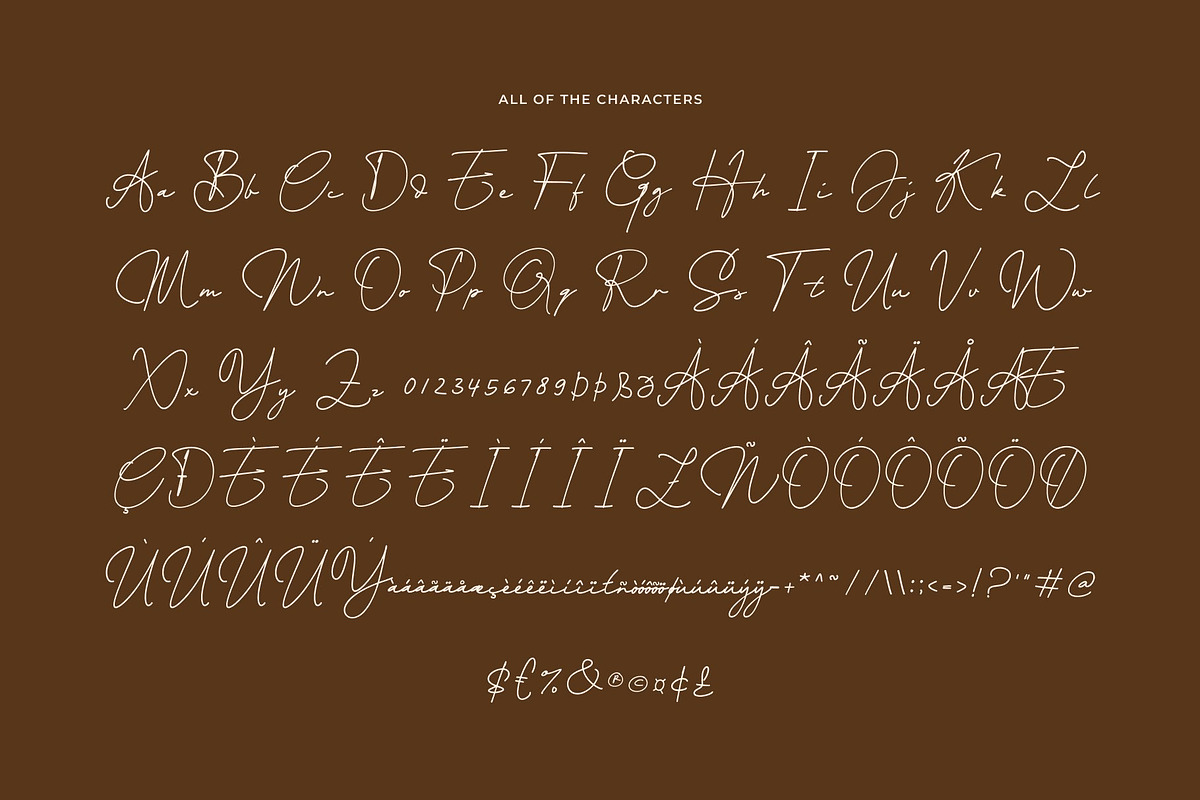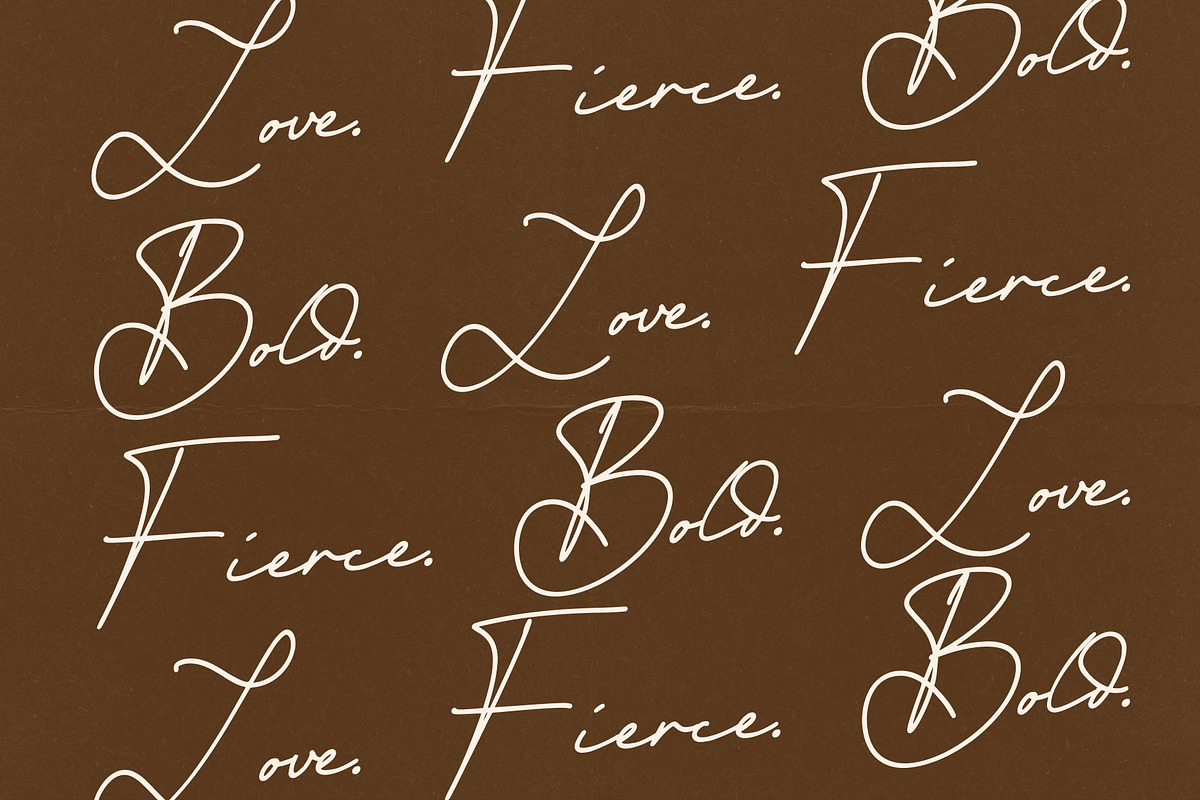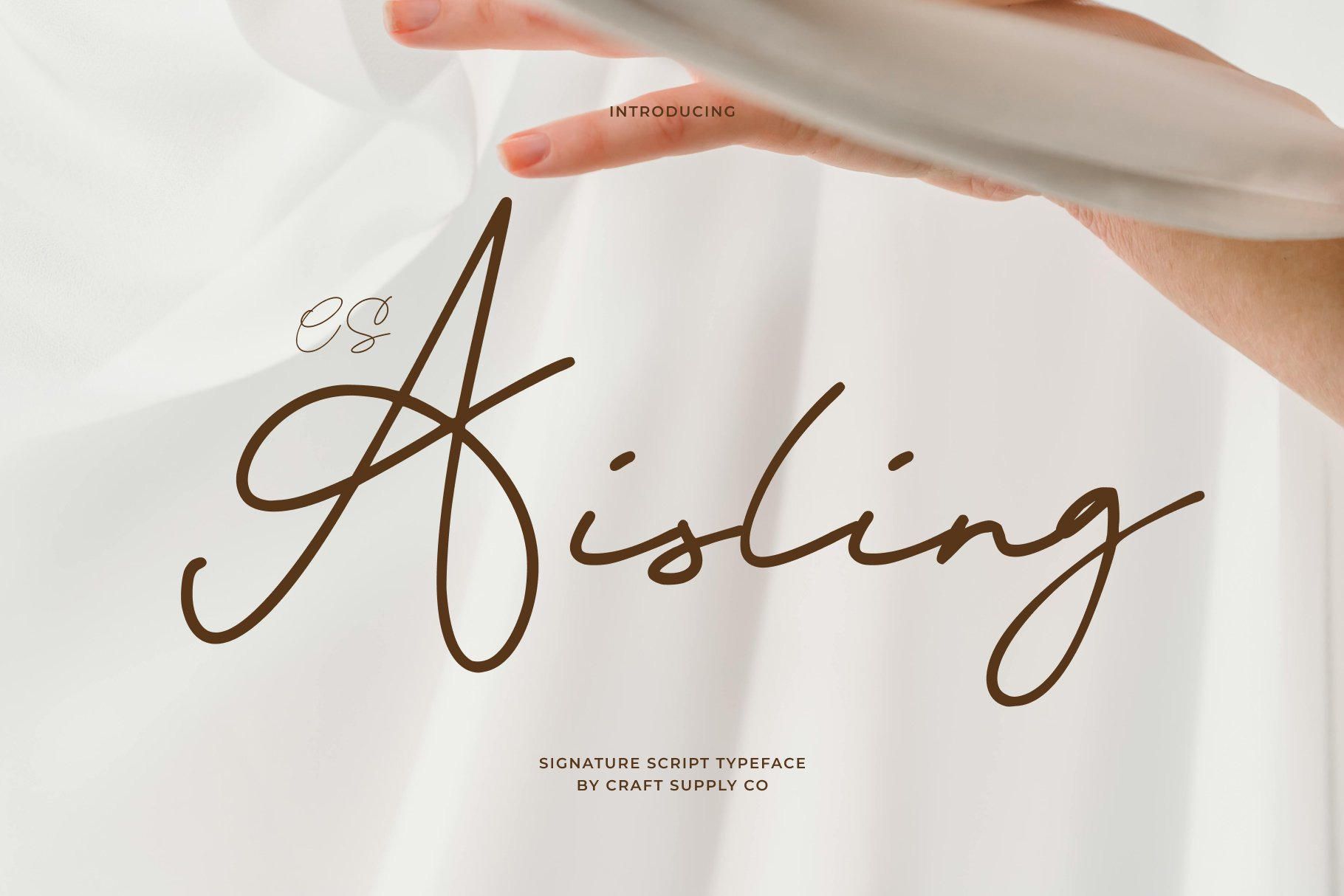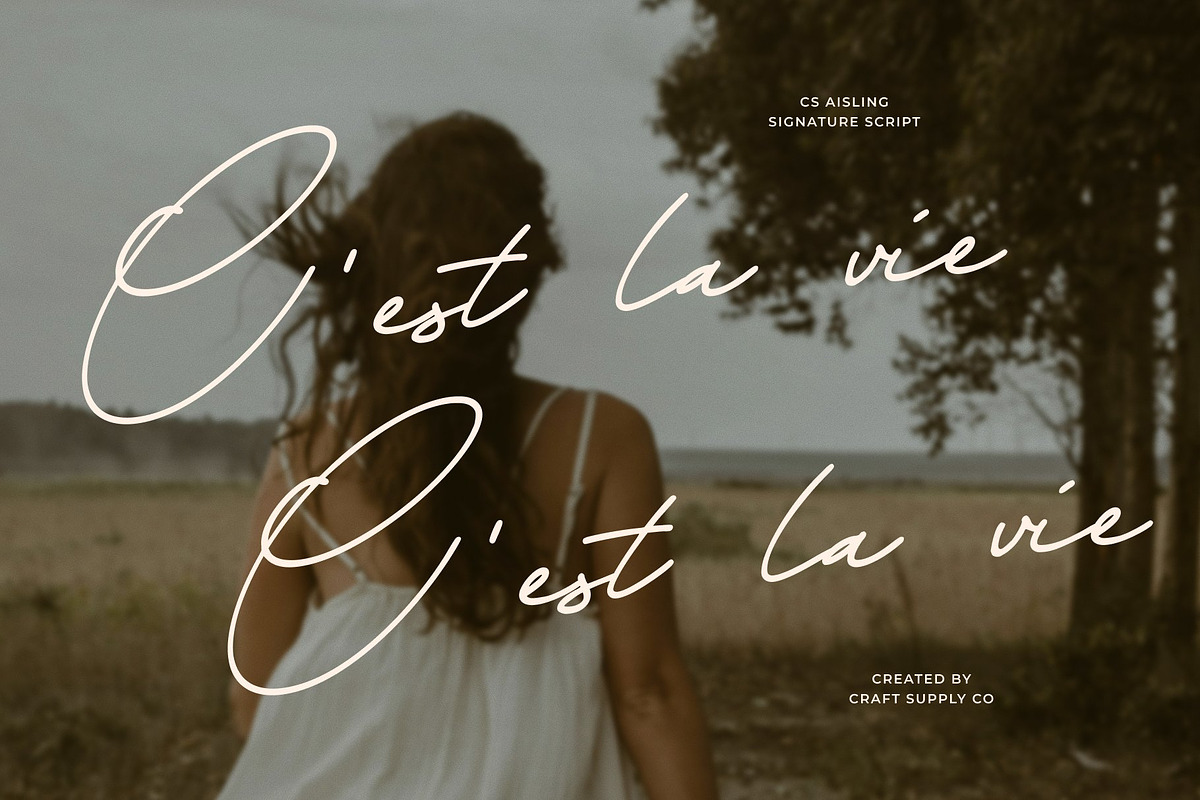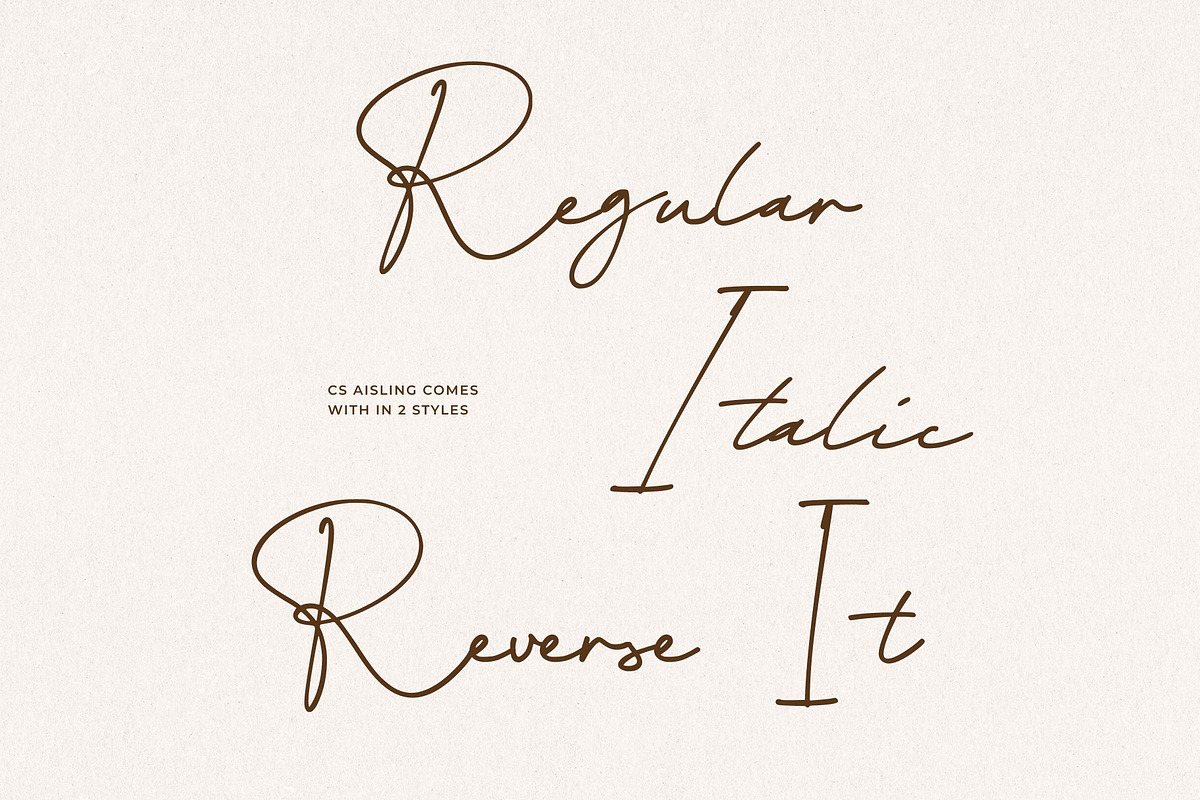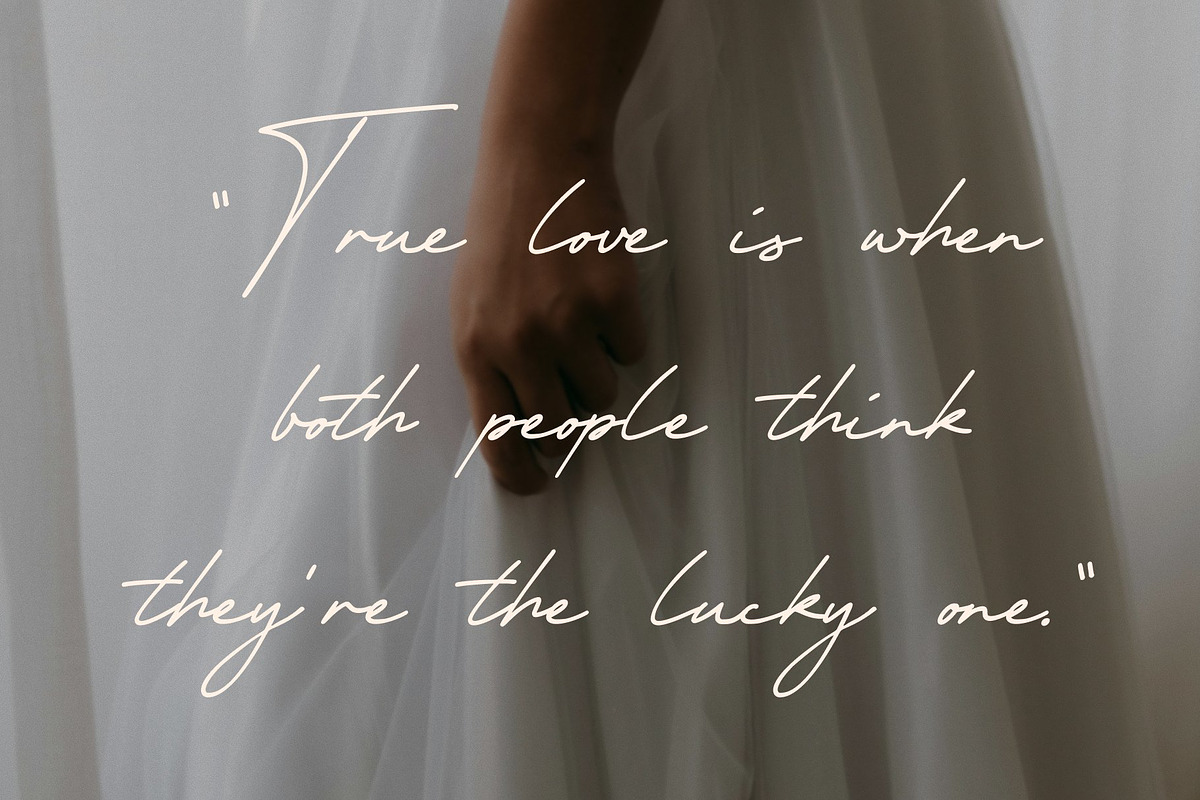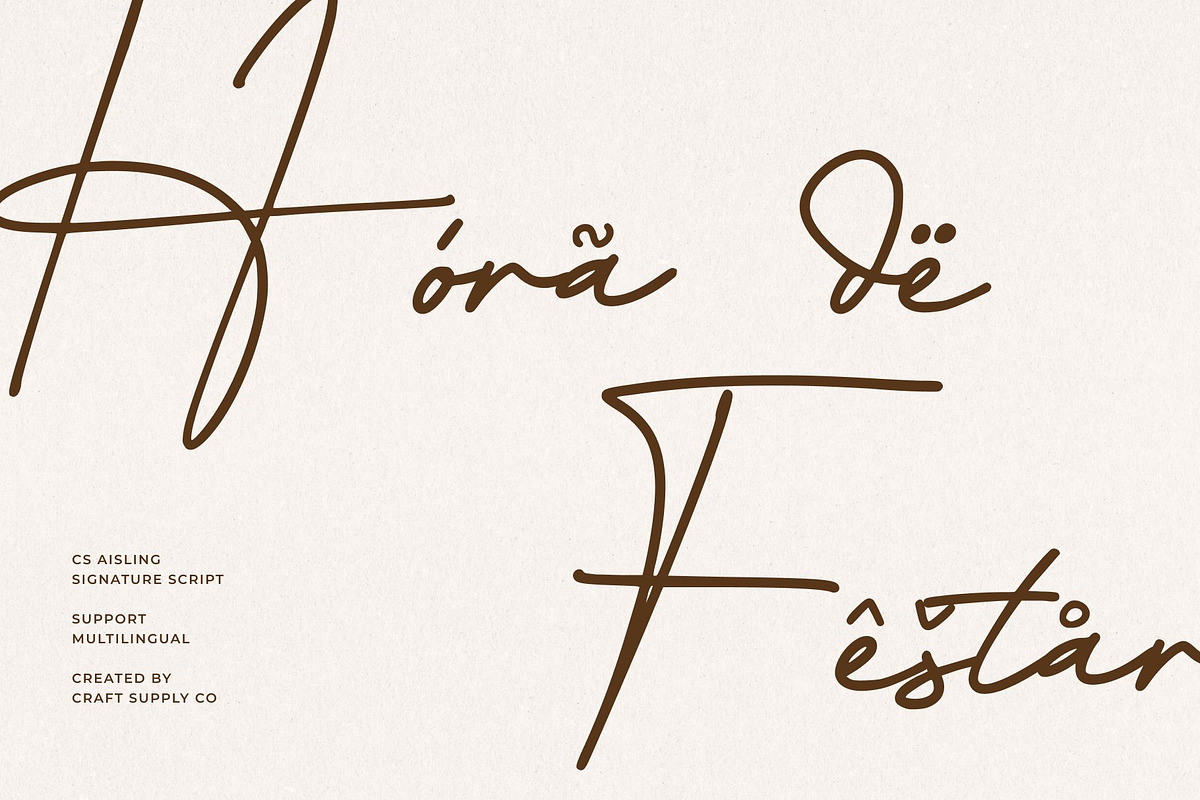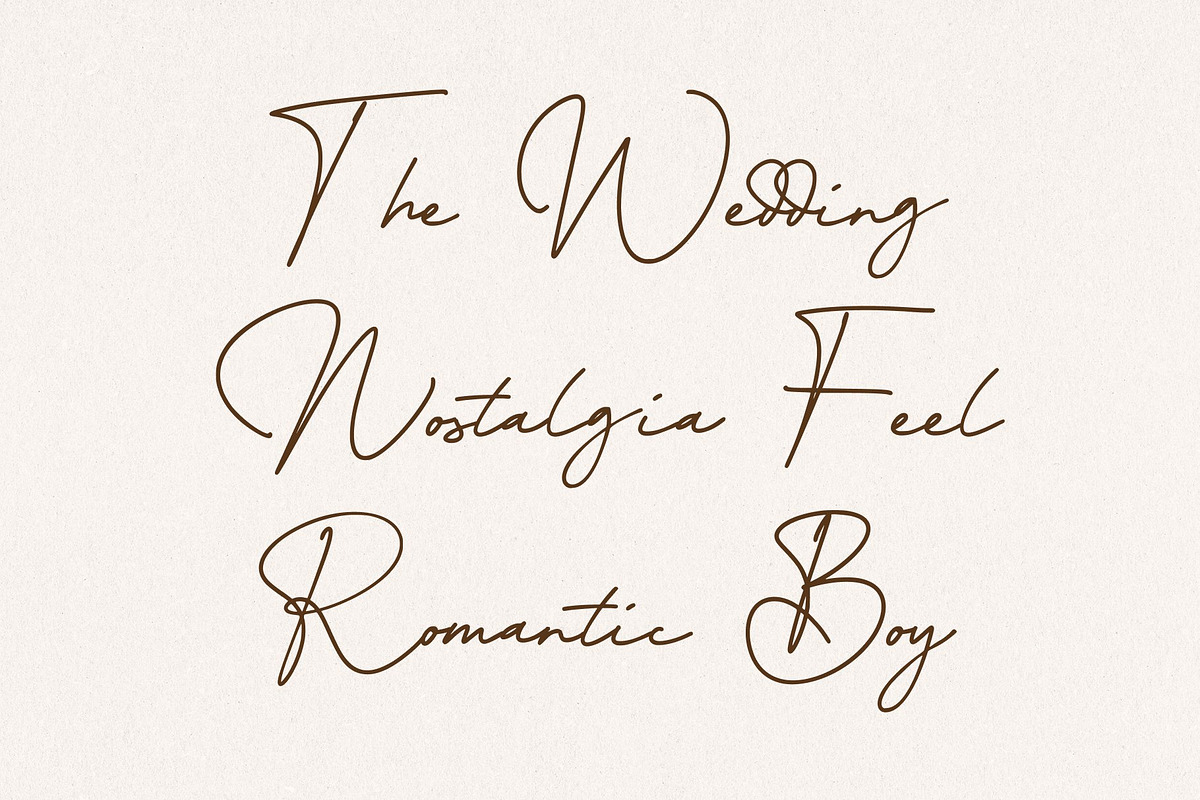
CS Aisling – Signature Script Font
CS Aisling – Personal Signature Style with Timeless Elegance
Signature Script Font with Handwritten Authenticity This is a signature script font designed to capture the personal and unique character of handwritten signatures. Inspired by natural pen strokes and fluid writing motion, this font delivers an authentic, intimate feel that adds individuality to any design. Each letter flows effortlessly, creating a refined yet expressive style that feels both personal and elegant.
Natural Strokes with Unique Personality The beauty of this font lies in its organic strokes and natural rhythm. Subtle variations in line weight and smooth connections give the font a realistic handwritten appearance, closely resembling a genuine signature. This unique personality makes the font stand out, allowing designs to feel exclusive, custom, and thoughtfully crafted rather than generic or mechanical.
Elegant Expression for High-End Designs This font balances softness and sophistication, making it ideal for elegant and luxury-focused visuals. Its graceful curves and refined flow convey confidence, style, and professionalism without losing a human touch. The font works beautifully as a focal element, adding warmth and prestige to designs that value authenticity and refined aesthetics.
Ideal for Logos, Branding, and Luxury Invitations Designed for premium applications, this font is perfect for logos, branding, luxury invitations, packaging, and fashion or beauty-related projects. Its signature-style form makes it especially suitable for personal brands, boutique businesses, wedding stationery, and high-end event materials.
- CS Aisling Regular
- CS Aisling Italic
- CS Aisling Reverse Italic